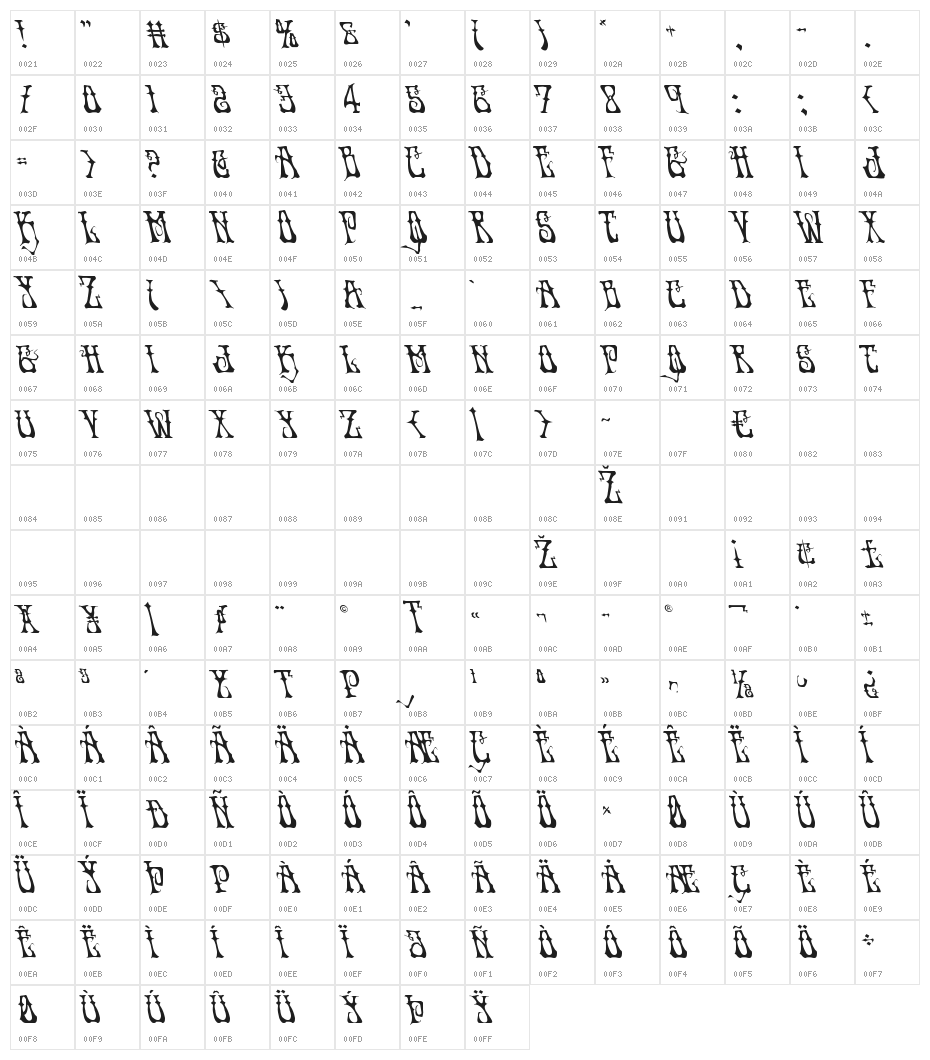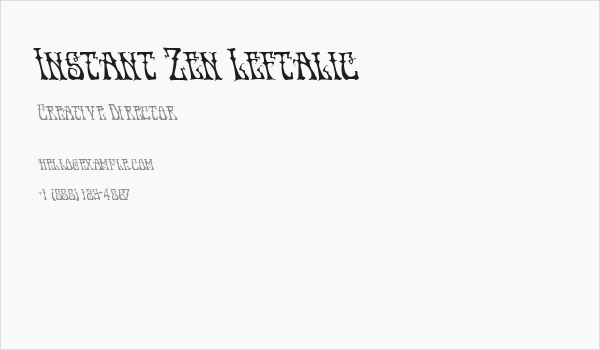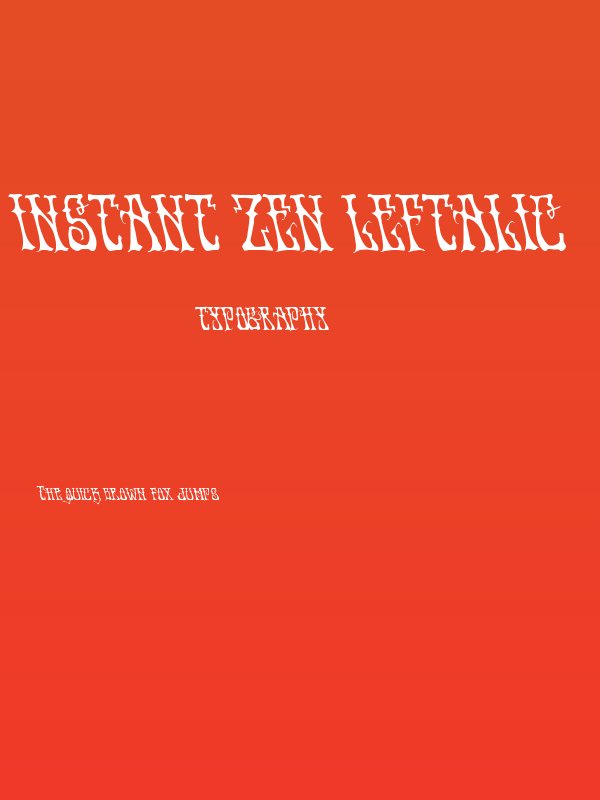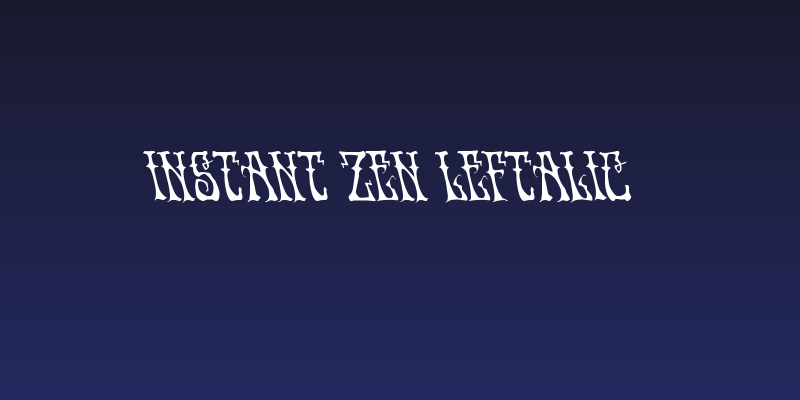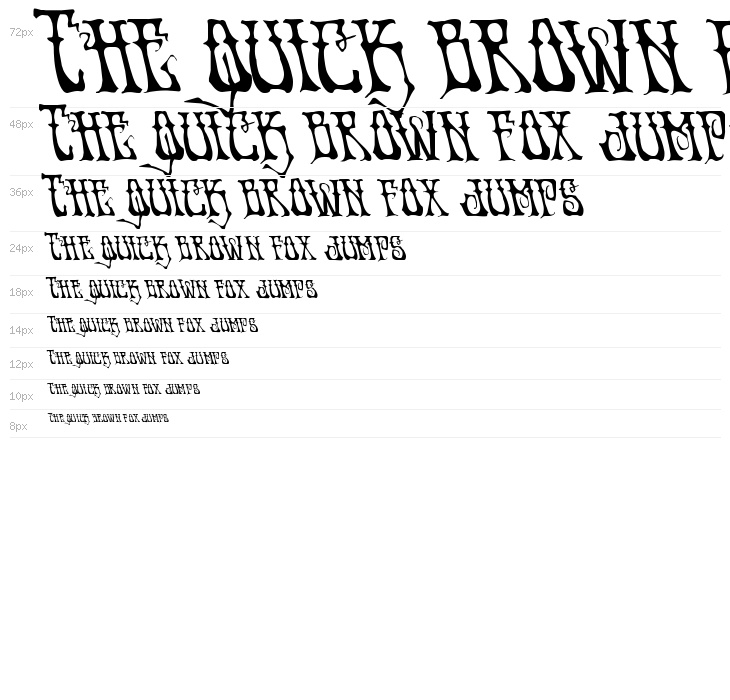
Instant Zen Leftalic Font
Instant Zen Leftalic Description
This font exhibits a unique and artistic style with a strong decorative flair. The characters are highly stylized, featuring exaggerated curves and intricate details that give it a whimsical and almost mystical appearance. The uppercase and lowercase letters maintain a consistent design theme, with each character displaying a distinct personality. The numbers and special characters are equally ornate, ensuring a cohesive look across all glyphs. This font's bold and dramatic strokes create a striking visual impact, making it ideal for projects that require a standout typeface.
Proposed ProjectsIdeal for artistic posters, fantasy-themed designs, album covers, and unique branding projects.